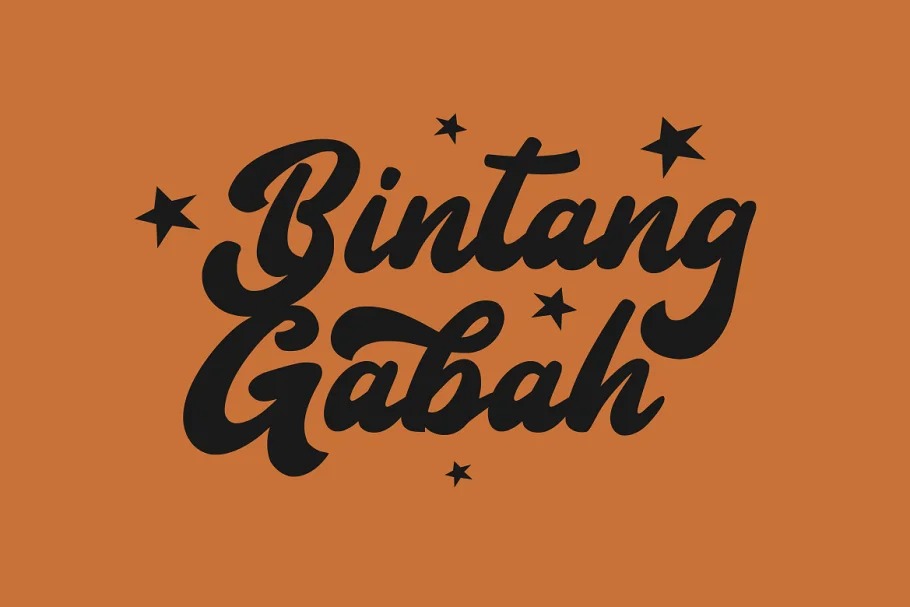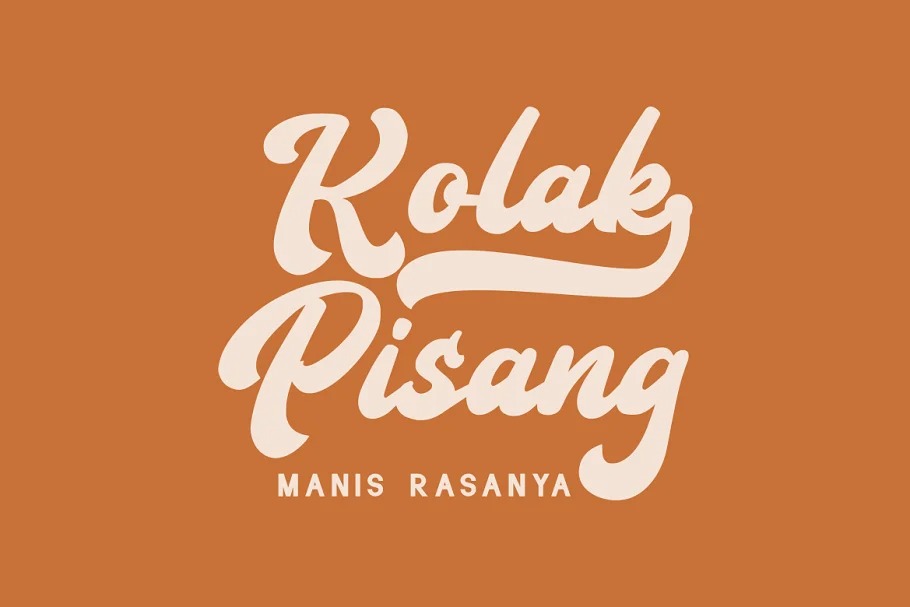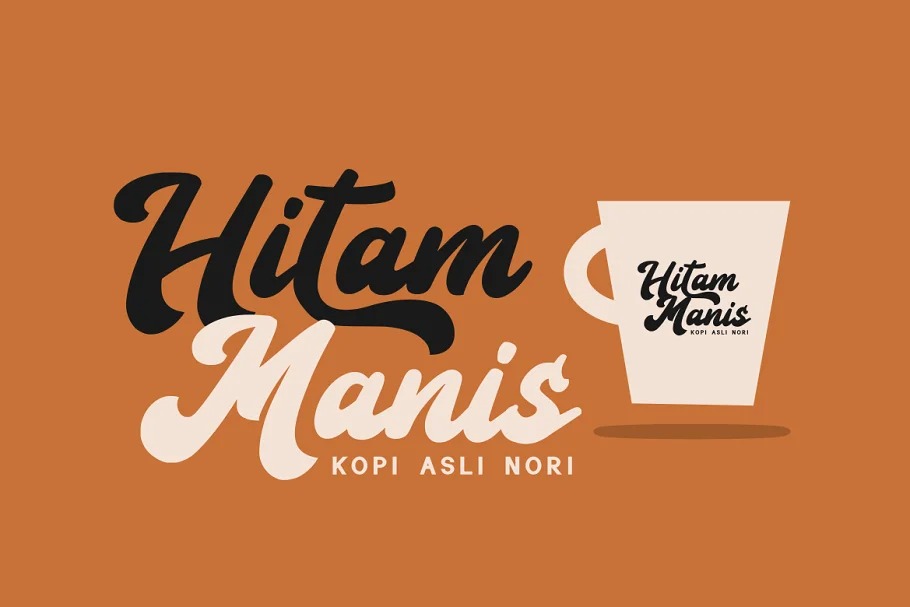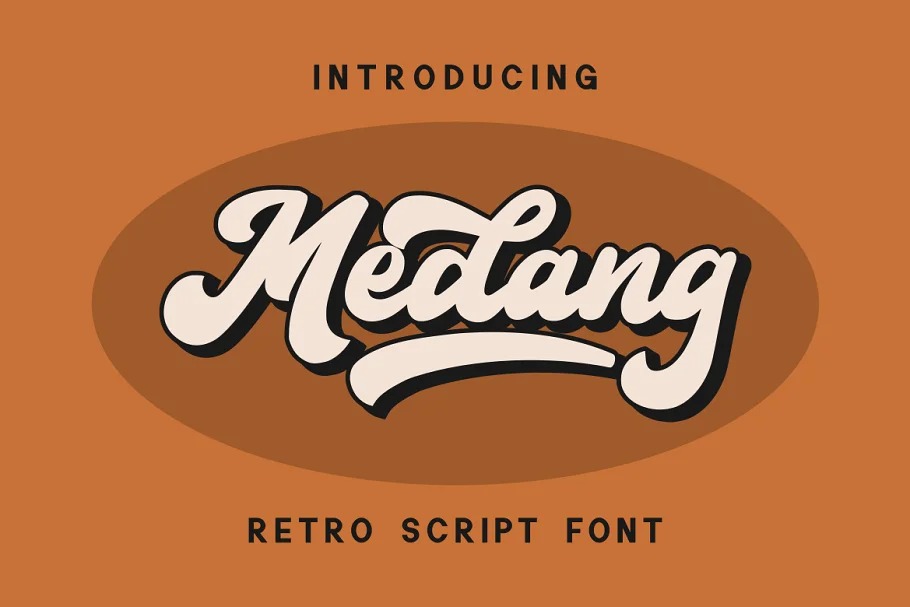
Medang Script Font
This typeface is a bold and spirited script with extensive ornate detailing. This versatile font is evocative of antique signpainters’ letters, circus wagon & carnival booth graphics, groovy 1960s psychedelic scripts, and even sportswear team insignias, all combined with a modern approach towards lively curlicues and ball finial stroke ends.